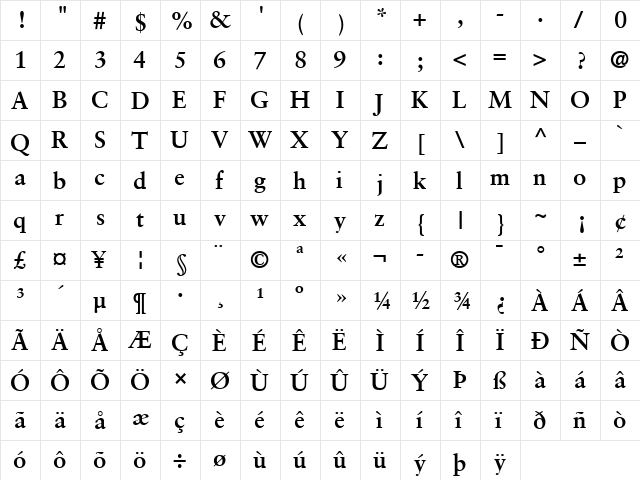
Sabon LT Bold
Design Context for Sabon LT Typeface
Sabon LT takes a measured approach to typography — its balanced proportions and neutral character make it a reliable workhorse for both digital and print work. Its bold stroke weight gives it real presence on the page.
Pro Tip: Pair Sabon LT with a font of contrasting weight or personality to build a more expressive typographic hierarchy.